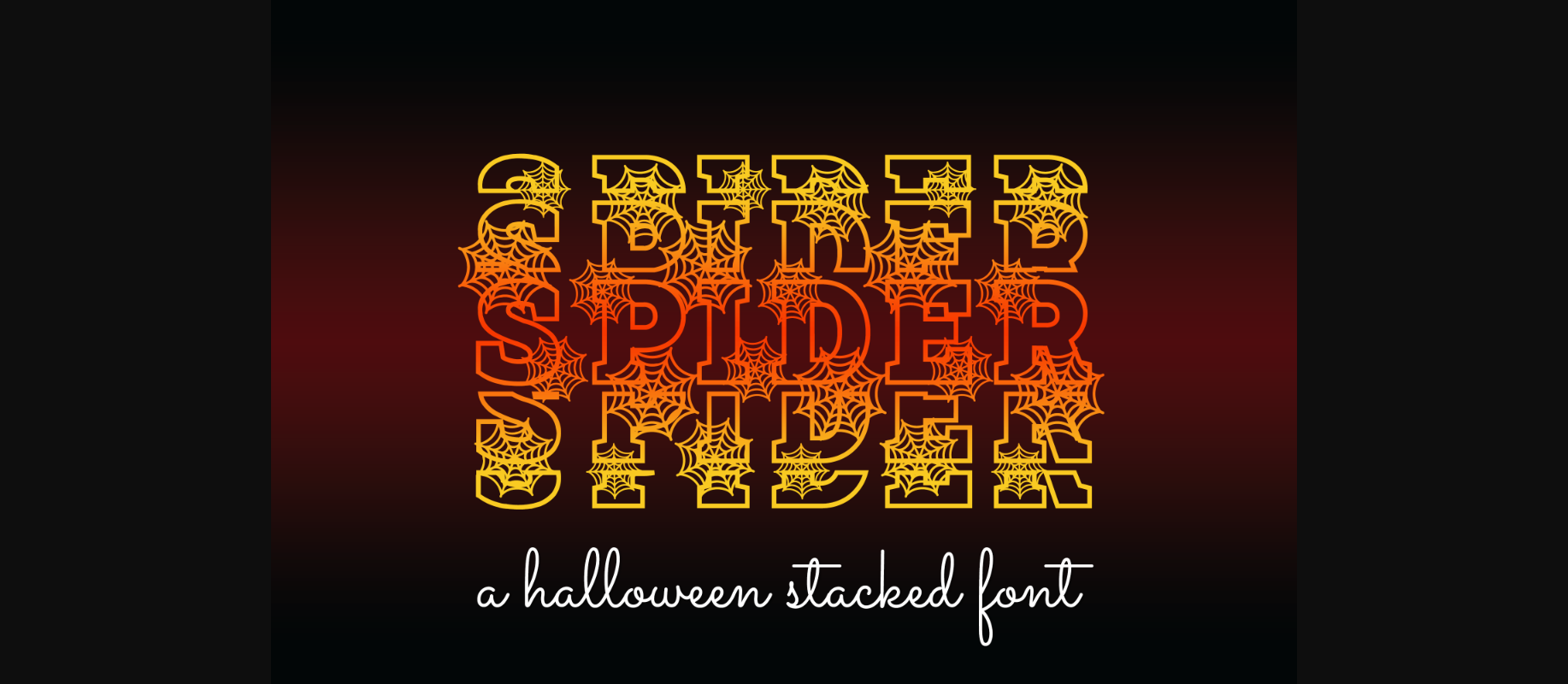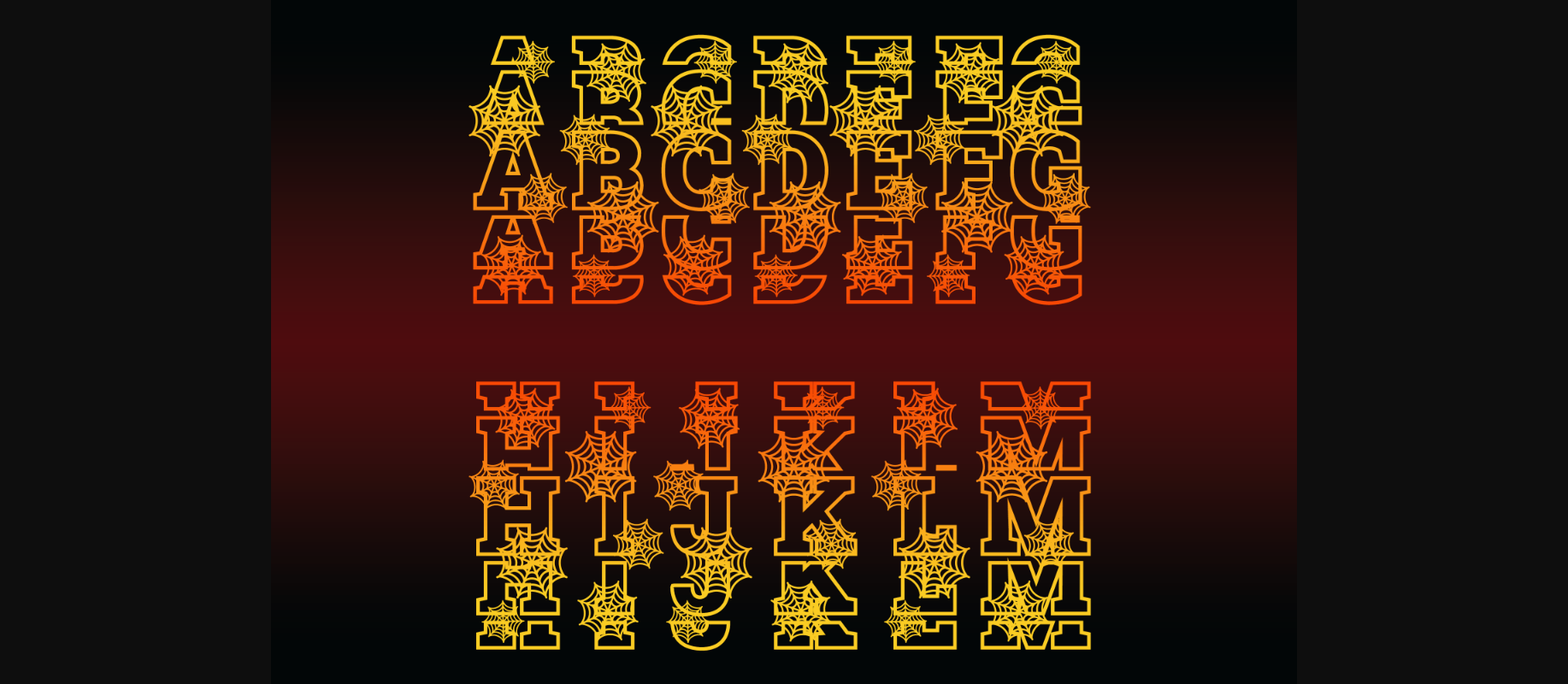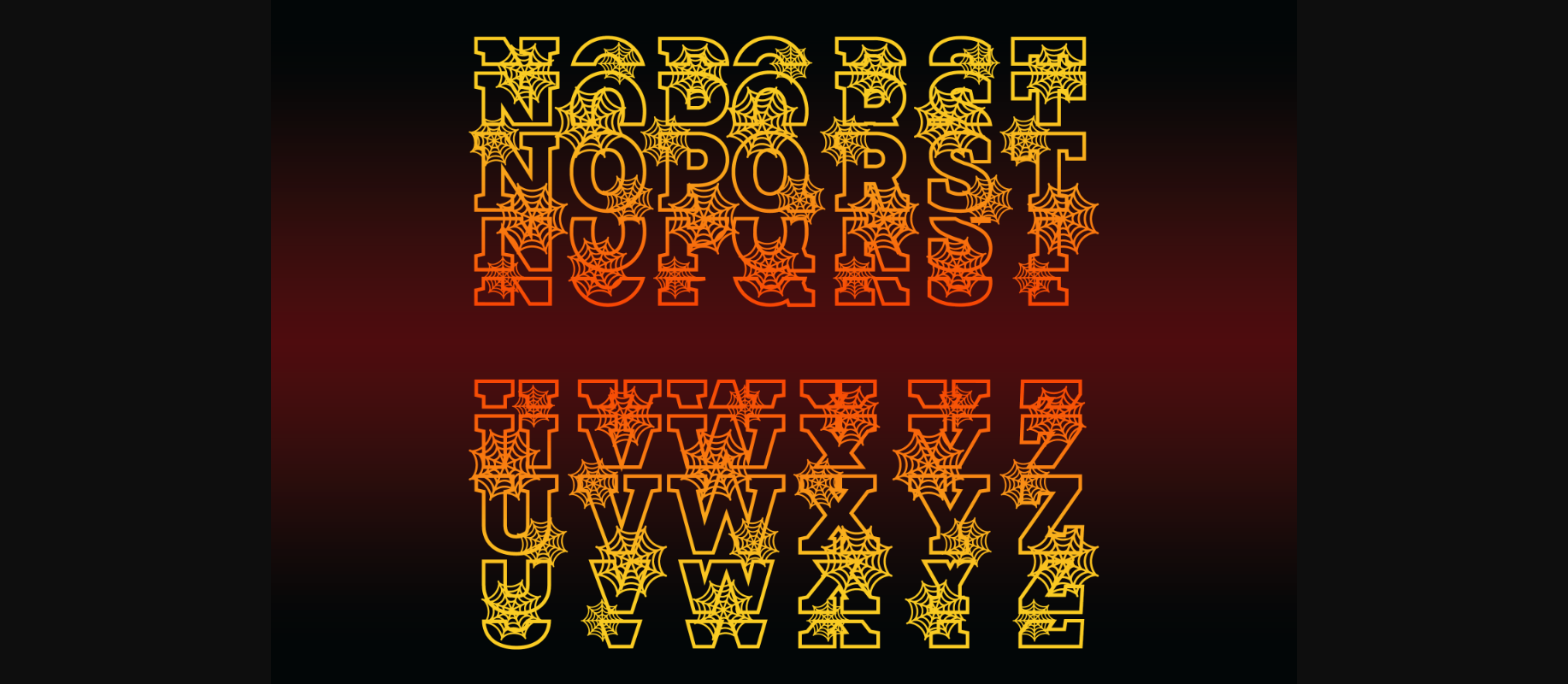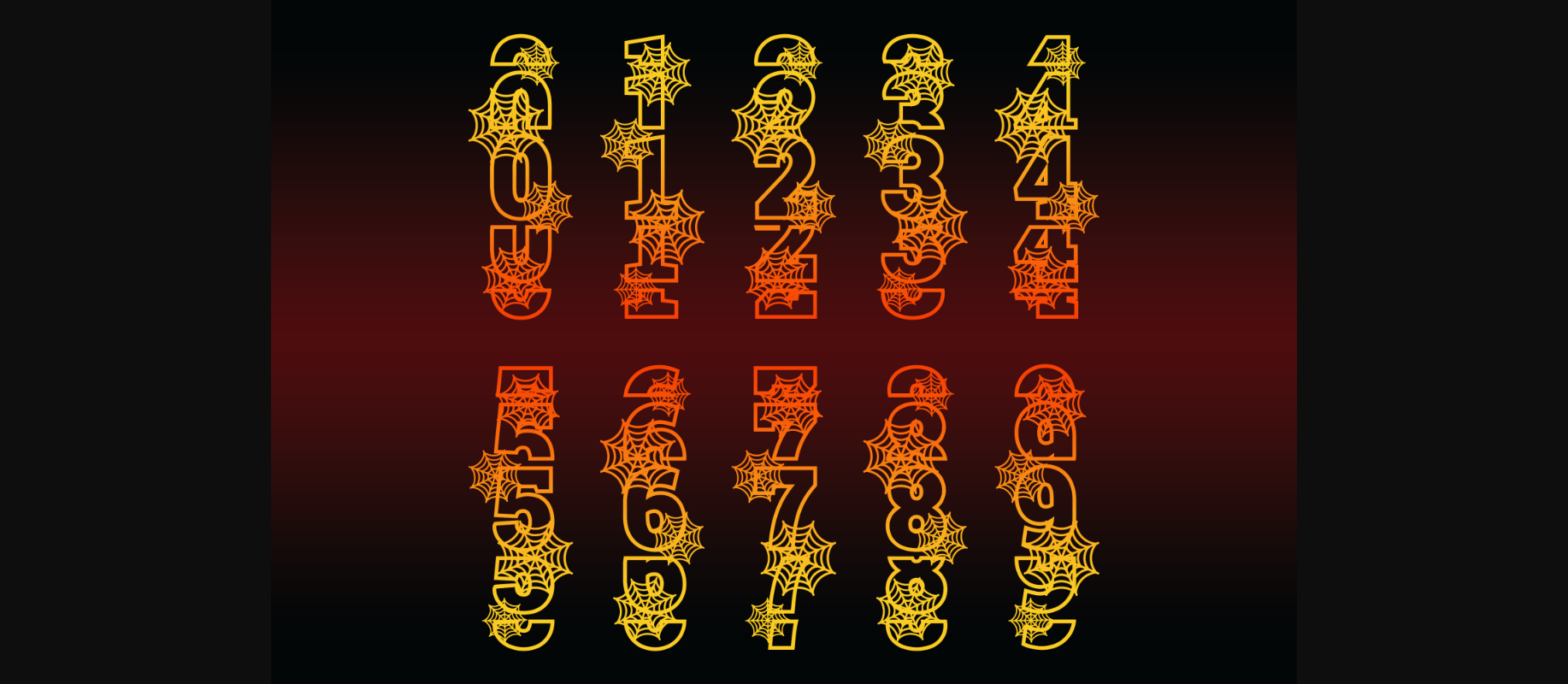
Spider is an incredibly cool decorative font. Whether you use it for custom designs, DIY crafts, or just any creation that requires a spooky touch, this font will be an amazing choice.